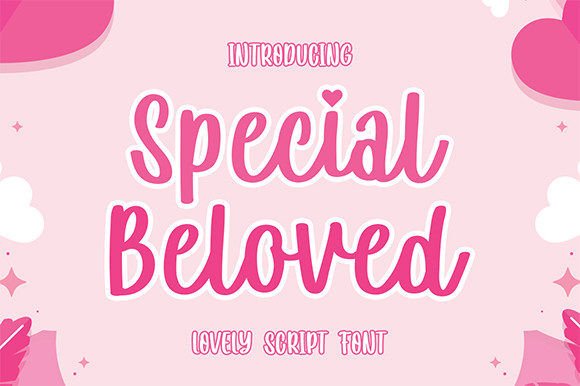
Introducing Special Beloved Font - The Quintessence of Beauty and Timeless Elegance
In the vast realm of digital artistry, the Special Beloved Font stands as a beacon of splendor, inviting you to embrace the allure of exquisite lettering. Its enchanting strokes, reminiscent of a skilled calligrapher's hand, breathe life into your digital creations, transforming them into expressions of heartfelt emotion.
Crafted with love and meticulous attention to detail by the renowned Bluestype Studio, Special Beloved Font belongs to the esteemed family of script fonts. With its inherent legibility and captivating style, it effortlessly elevates the visual appeal of any text, making it the perfect choice for an array of creative endeavors.
Indulge yourself in the romantic charm of Special Beloved Font. Its graceful curves and playful flourishes lend an air of sophistication to wedding invitations, creating a sense of timeless elegance that will leave a lasting impression on your guests.
With Special Beloved Font, you'll discover a font that perfectly captures the essence of personal expression. Whether you're crafting heartfelt greeting cards for loved ones or designing a captivating blog header that reflects your unique personality, this font becomes an extension of your creative spirit.
Immerse yourself in the warmth and beauty of handwritten text, brought to life through the magic of Special Beloved Font. Its versatility knows no bounds, making it an ideal choice for creating social media posts that captivate your audience, adding a personal touch to marketing materials that resonate with your customers, or designing logos that exude a sense of authenticity and charm.
With Special Beloved Font, your digital creations will transcend the ordinary, transforming into captivating expressions of art that leave an indelible mark on the minds of those who behold them. Embrace the allure of this exquisite font and let your creativity soar to new heights.